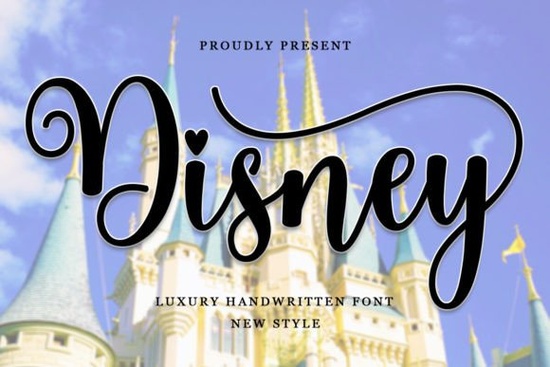
If you've ever wanted to give your designs that magical, whimsical handwritten feel, the Disney Font is a script typeface worth looking at. It's an elegant, flowing handwritten font with varied baselines, smooth lines, and beautiful alternates that work well for a wide range of creative projects. Whether you're working on invitations, branding, or print-on-demand designs, this font brings a classy calligraphic touch while still feeling modern and fresh.
What Does a Disney-Inspired Script Font Look Like?
This font style is all about graceful curves and flowing letterforms. The strokes mimic the look of hand-lettered calligraphy, but without feeling stiff or overly formal. Each letter connects smoothly to the next, giving your text a natural, handcrafted appearance. The varied baselines mean the letters don't all sit on the same line and that's a good thing. It adds personality and movement to your text, making it feel alive rather than flat.
The alternates and ligatures are where this font really shines. Swapping out a few letters can completely change the look of a word, giving you more creative flexibility without needing multiple fonts.
Who Is This Font Best Suited For?
This type of script font works well for a broad audience. Here are some common use cases:
- Wedding stationery designers Perfect for save-the-dates, invitations, and envelope addressing. If you're designing for bridal clients, pairing it with something like the Wedding Day font gives you complementary options for different text layers.
- Print-on-demand sellers T-shirt quotes, mug designs, and tote bag typography all benefit from a flowing handwritten style.
- Small business owners Use it for logos, packaging, social media graphics, or thank-you cards that need a personal, approachable feel.
- Crafters and hobbyists Great for Cricut and Silhouette projects, scrapbooking, and DIY home décor quotes.
- Social media creators Eye-catching script fonts make Instagram posts, stories, and Pinterest pins stand out in a feed.
How Does It Compare to Other Script Fonts?
There are plenty of handwritten and script fonts available, so how does this one stack up? Let's look at a few comparisons to help you decide:
- Shina Qatline Another beautiful script option, but with a slightly different personality. Shina Qatline leans more into a relaxed, casual flow, making it ideal for lifestyle brands and informal designs.
- Whimza If you want something playful and quirky, Whimza brings a fun energy that works well for children's products and lighthearted branding.
- The Matcha Club This one has a more modern, trendy aesthetic. It pairs well with minimalist layouts and contemporary design styles.
The Disney-inspired style sits in a sweet spot between formal calligraphy and casual handwriting. It's elegant enough for upscale projects but approachable enough for everyday use. That versatility is what makes it a solid addition to any designer's font library.
How Do You Pair It With Other Fonts?
Script fonts like this one look best when paired with a simple, clean sans-serif or serif for body text. Here are a few pairing tips:
- Use the script font for headlines or featured words only. Too much flowing script can be hard to read, especially at smaller sizes.
- Pair it with a clean sans-serif for supporting text. Think fonts like Montserrat, Poppins, or Open Sans for descriptions and body copy.
- Match the mood. If your script font feels romantic, pair it with something soft. If it's bold, choose a typeface with more visual weight.
- Watch your spacing. Give the script text room to breathe. Tight kerning can make flowing letters feel cluttered.
A good rule of thumb: if your headline uses a decorative script, your body text should be as simple as possible. This creates contrast and keeps your design readable.